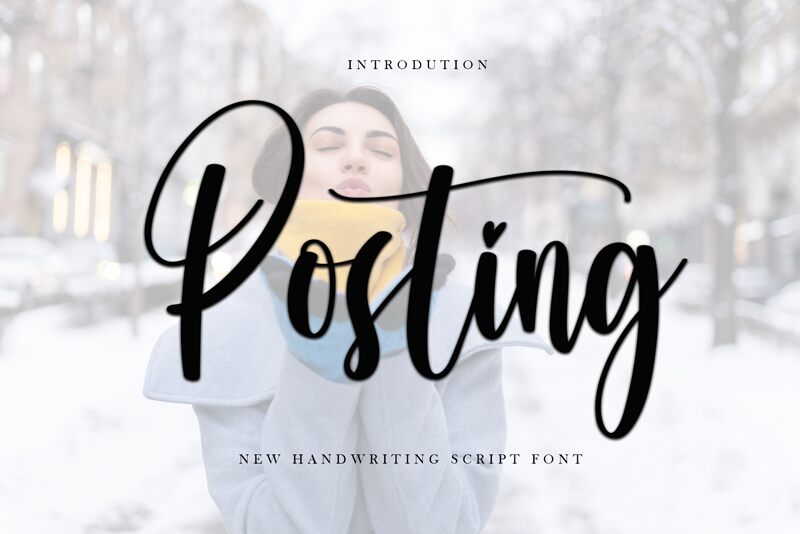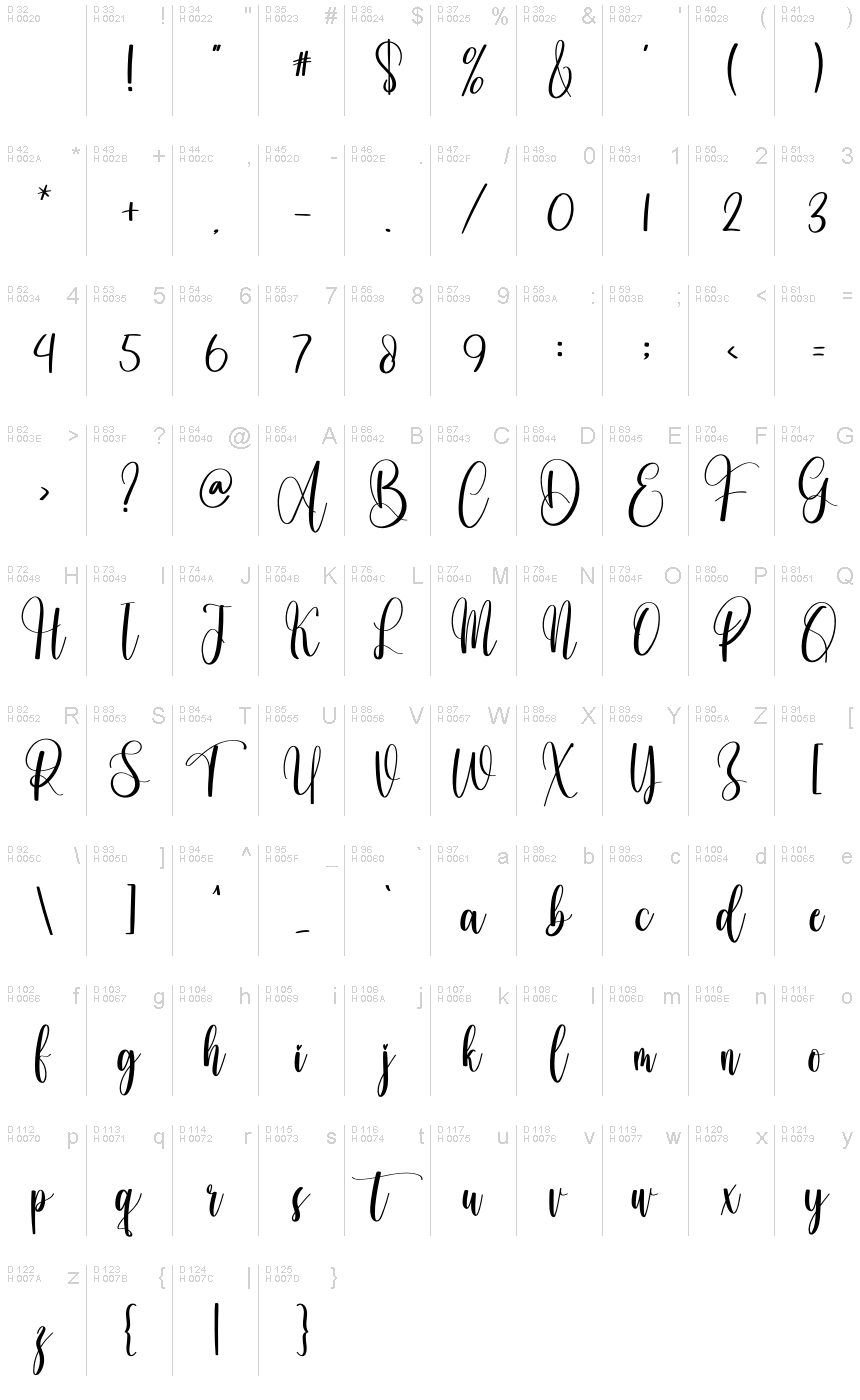
Posting
Posting, a creation of plafont store, is a handwritten font that boasts an intimate and personal touch. Its condensed form exudes a certain elegance and sophistication, capturing the essence of thoughtful penmanship. The fluidity of Posting's strokes lends it an organic charm that can imbue any text with warmth and character.
Ideal for invitations, branding, and editorial designs where personality is key, Posting provides designers with a versatile tool to create engaging messages that resonate on a human level. Its aesthetic appeal lies in its ability to marry the authenticity of handwriting with the precision of design—perfect for projects that demand both flair and intimacy.
This font retains a classy calligraphic influence while feeling contemporary and fresh. This versatility will attract a wide range of creative ideas, from letterheads and titles to stationery.